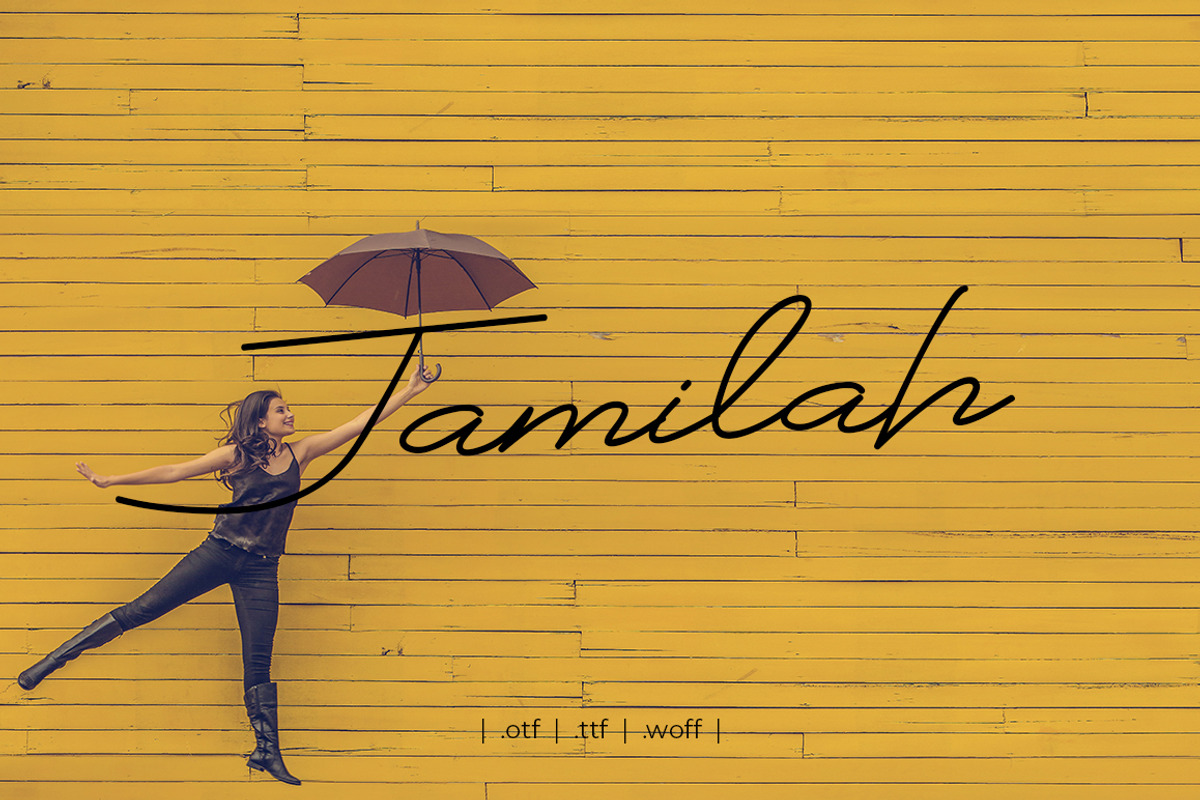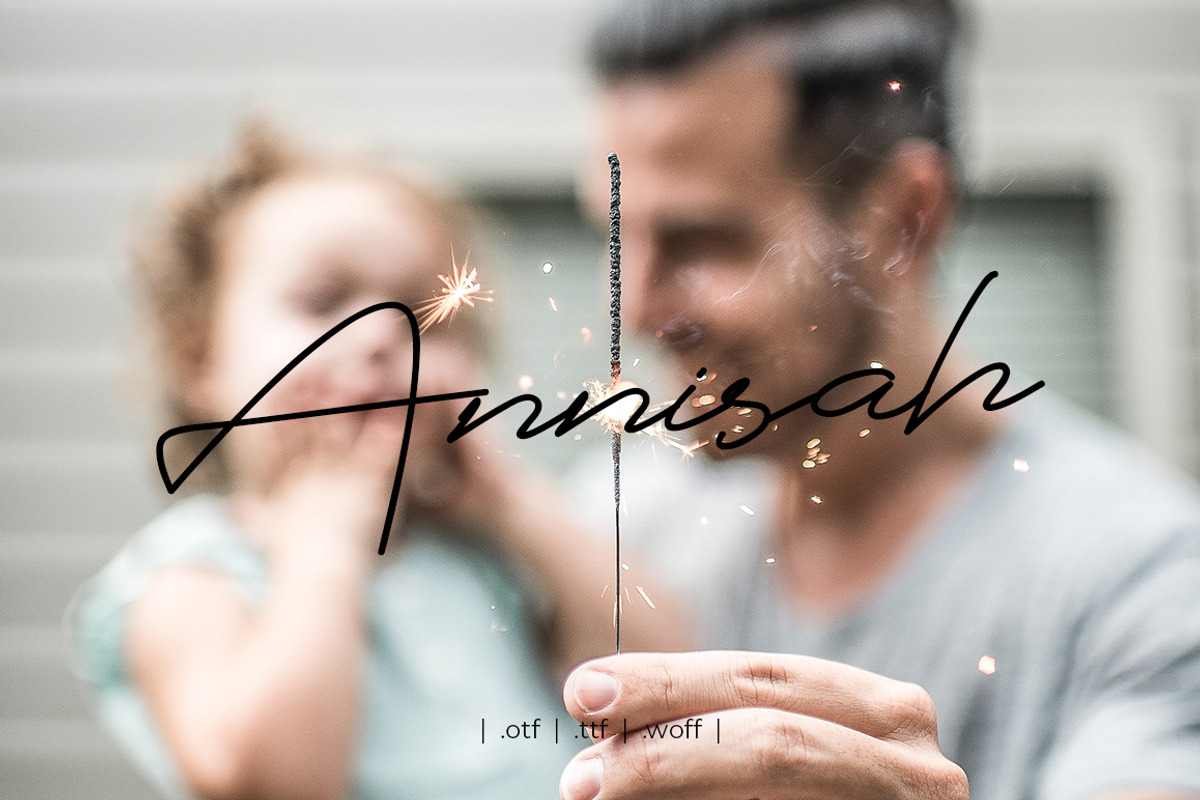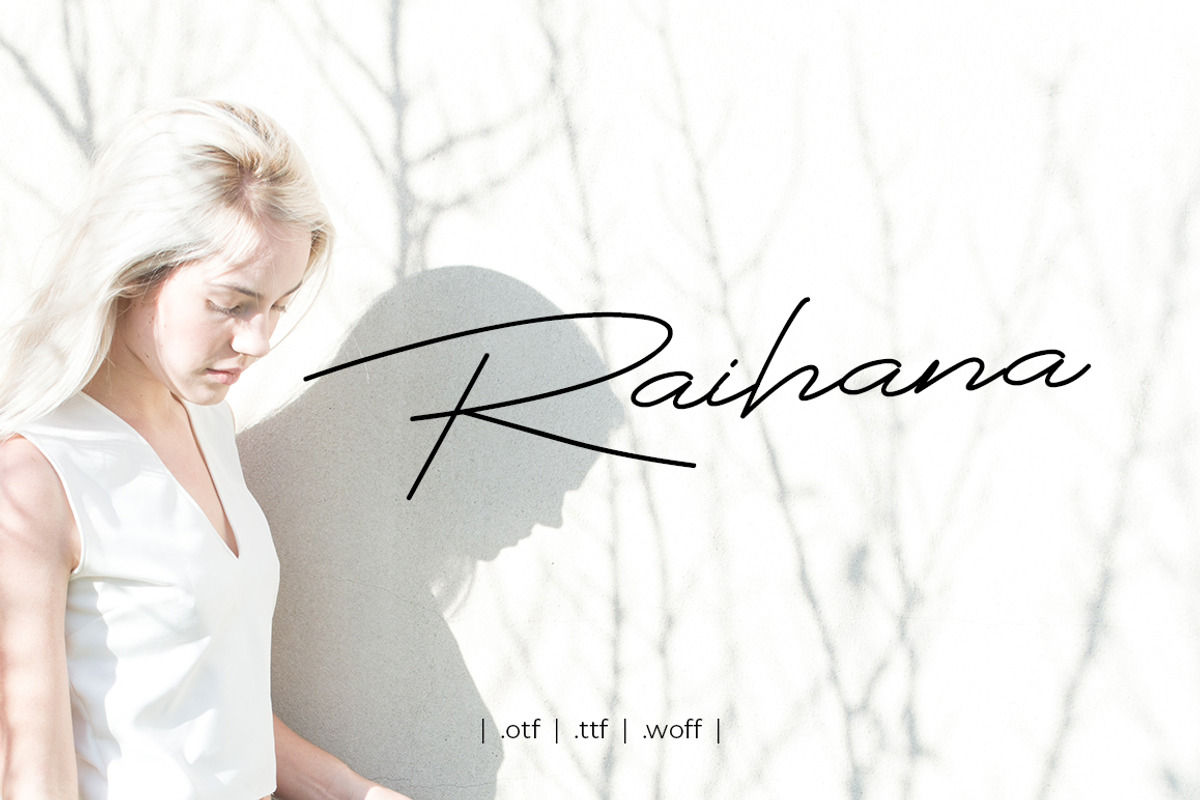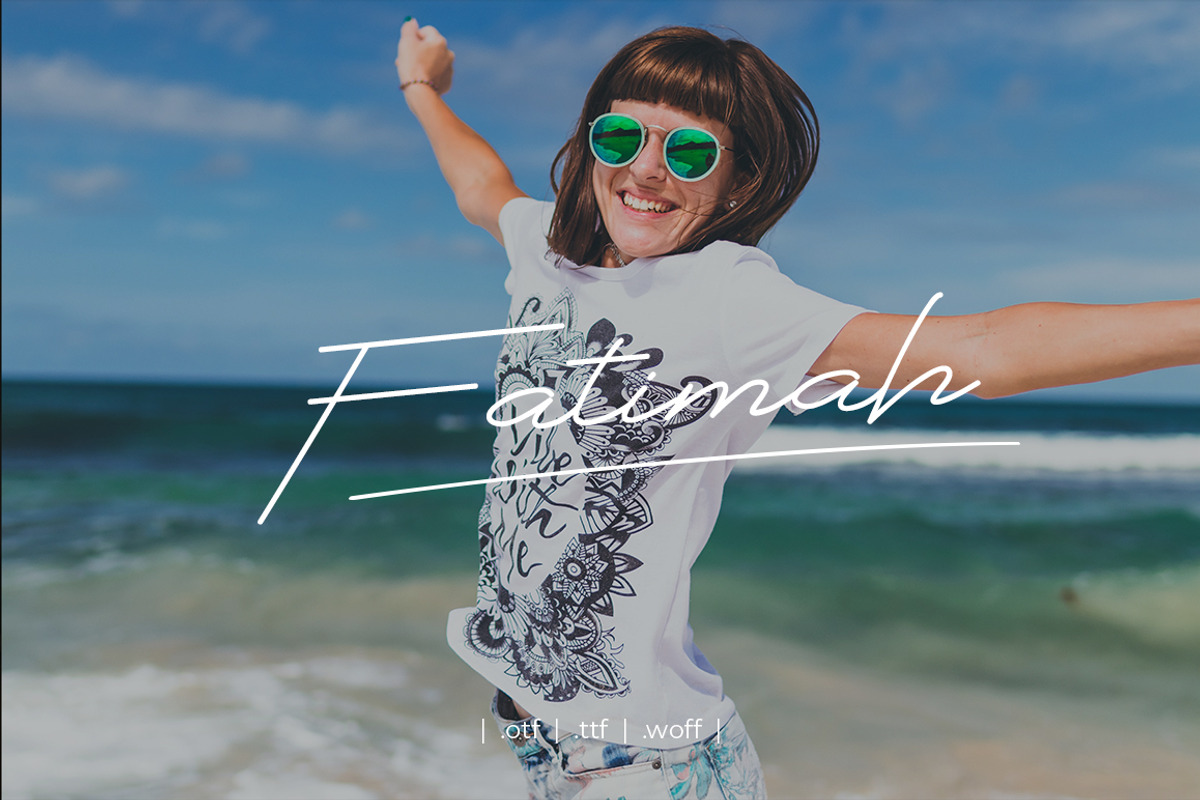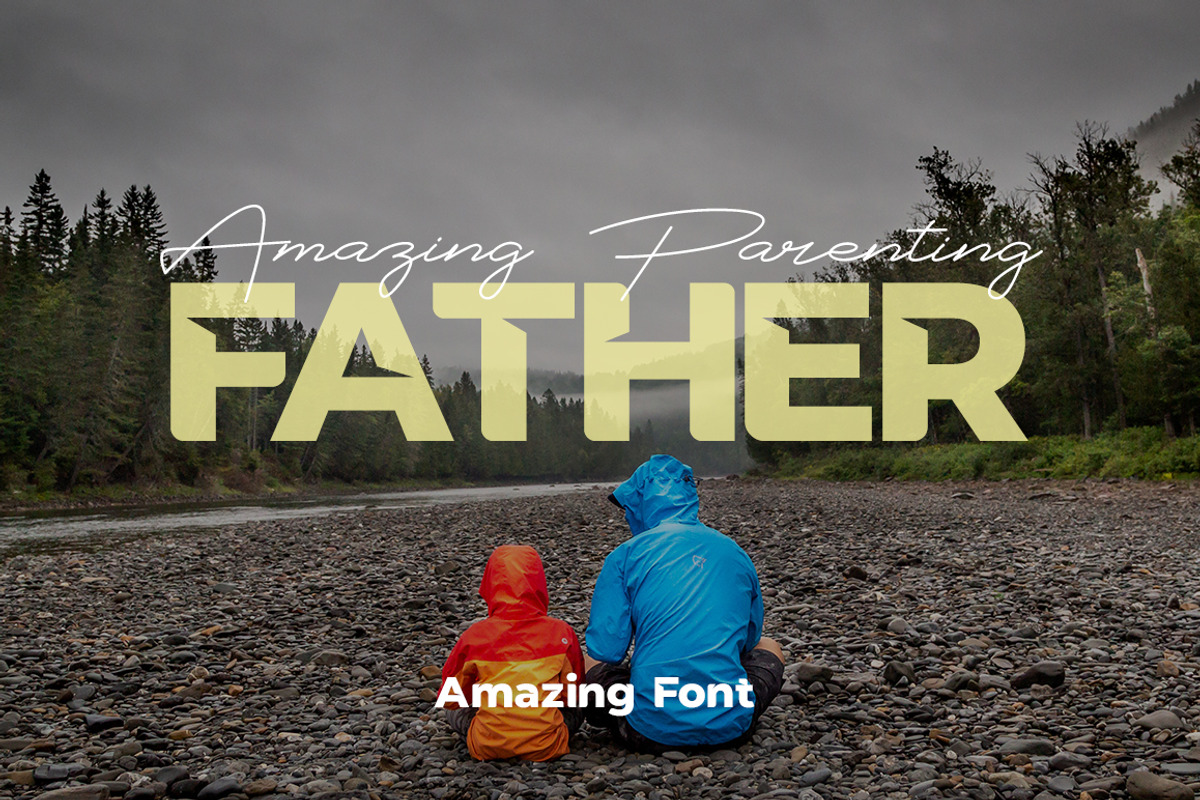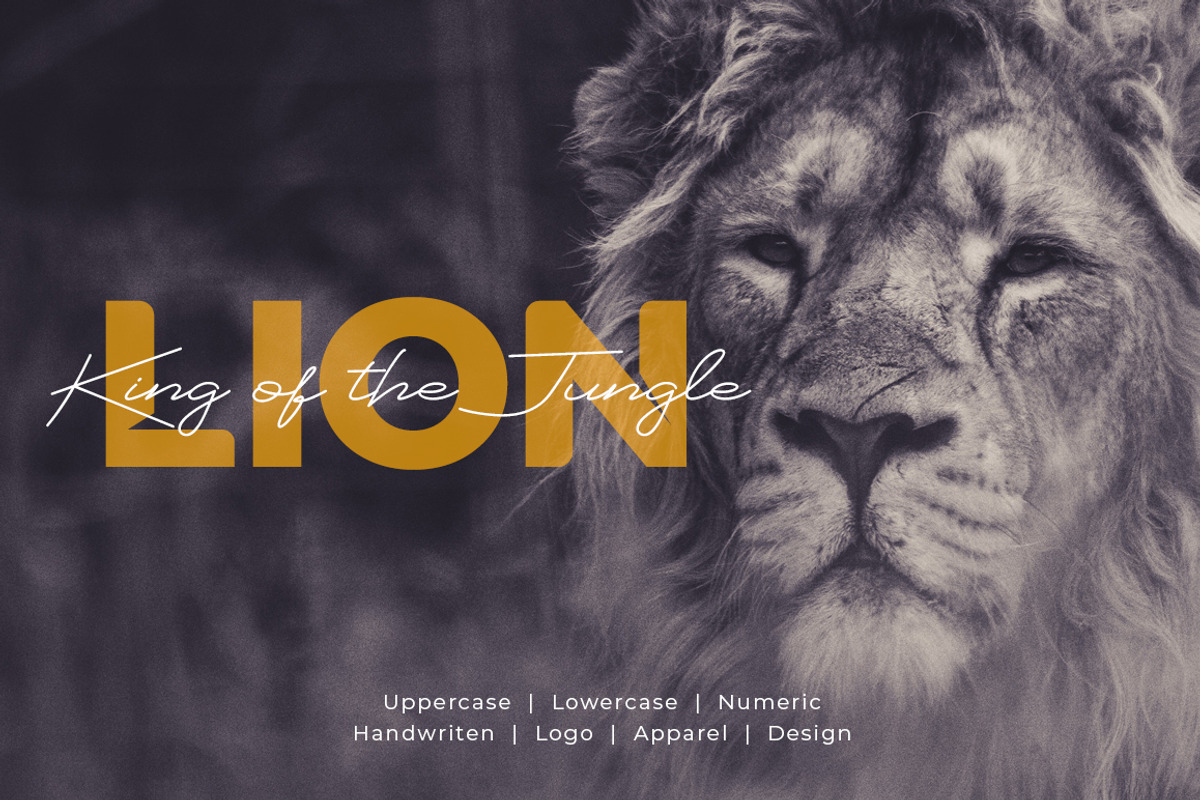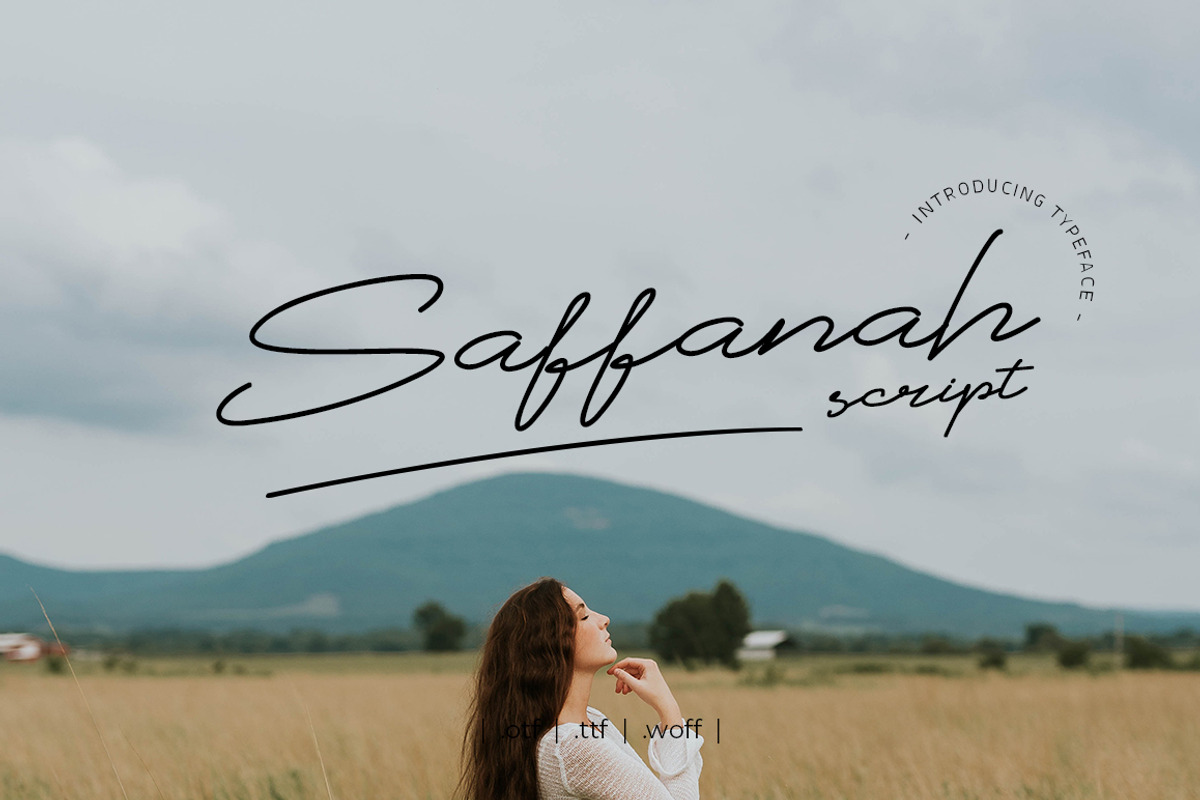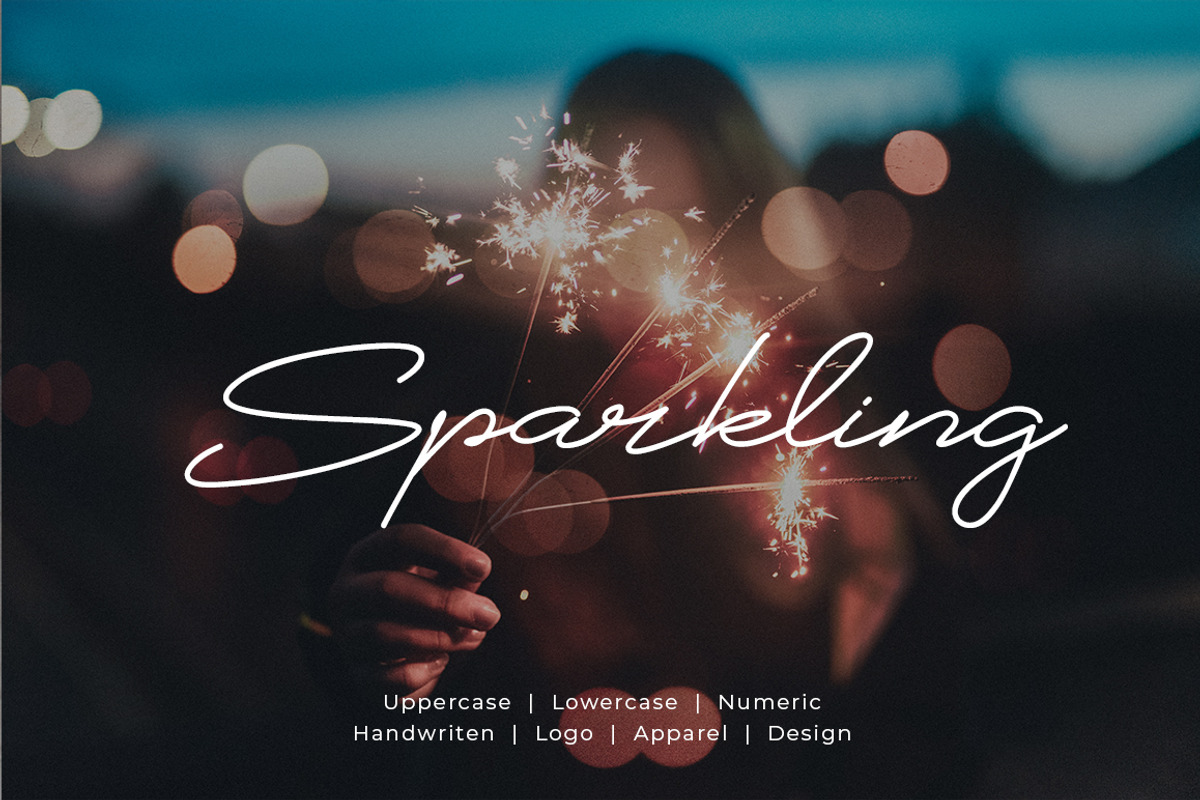
Saffanah Script Font
Saffanah Script Font is a stylish handwritten font that features a varying baseline, smooth line, classic and interesting touch. Can be used for various purposes. such as headings, signature, logos, posters, t-shirt, signage, lable, wedding invitation, badges etc.
Why Saffanah Script Font is worth a look
Saffanah Script Font by yantodesign fits naturally into Branding, posters, packaging, typography.